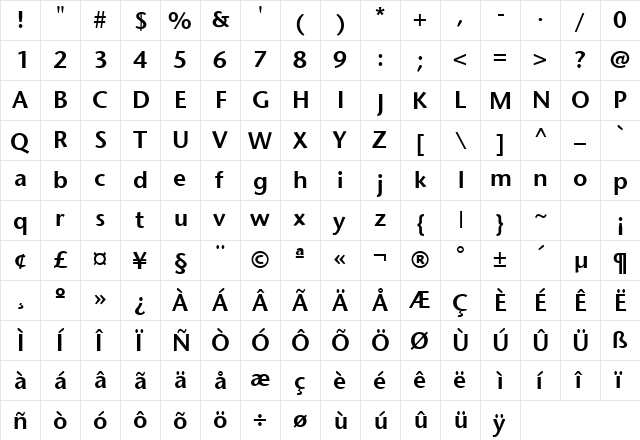
2Sto Regular
Design Context for 2Sto Typeface
2Sto offers clean, dependable letterforms without strong stylistic allegiance, making it a practical choice for designers who need flexibility.
Pro Tip: Use 2Sto in both headline and body roles to test its range before committing to a single application.